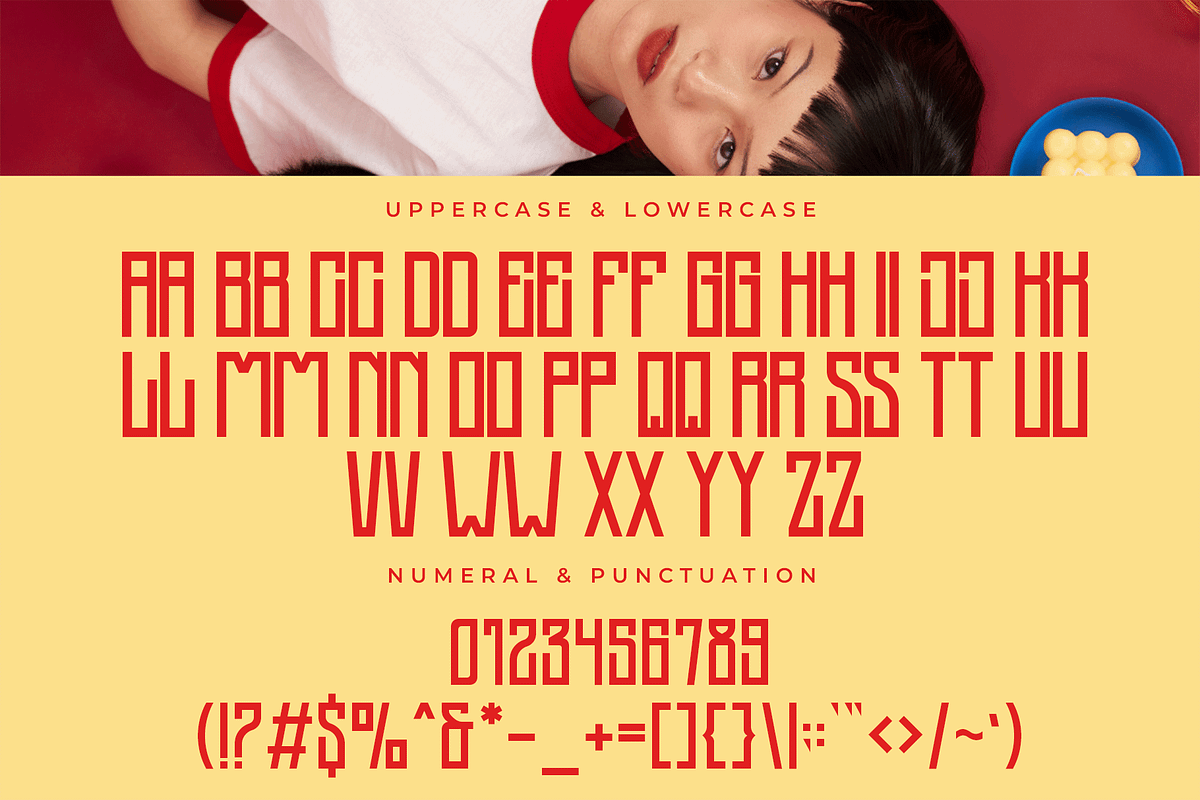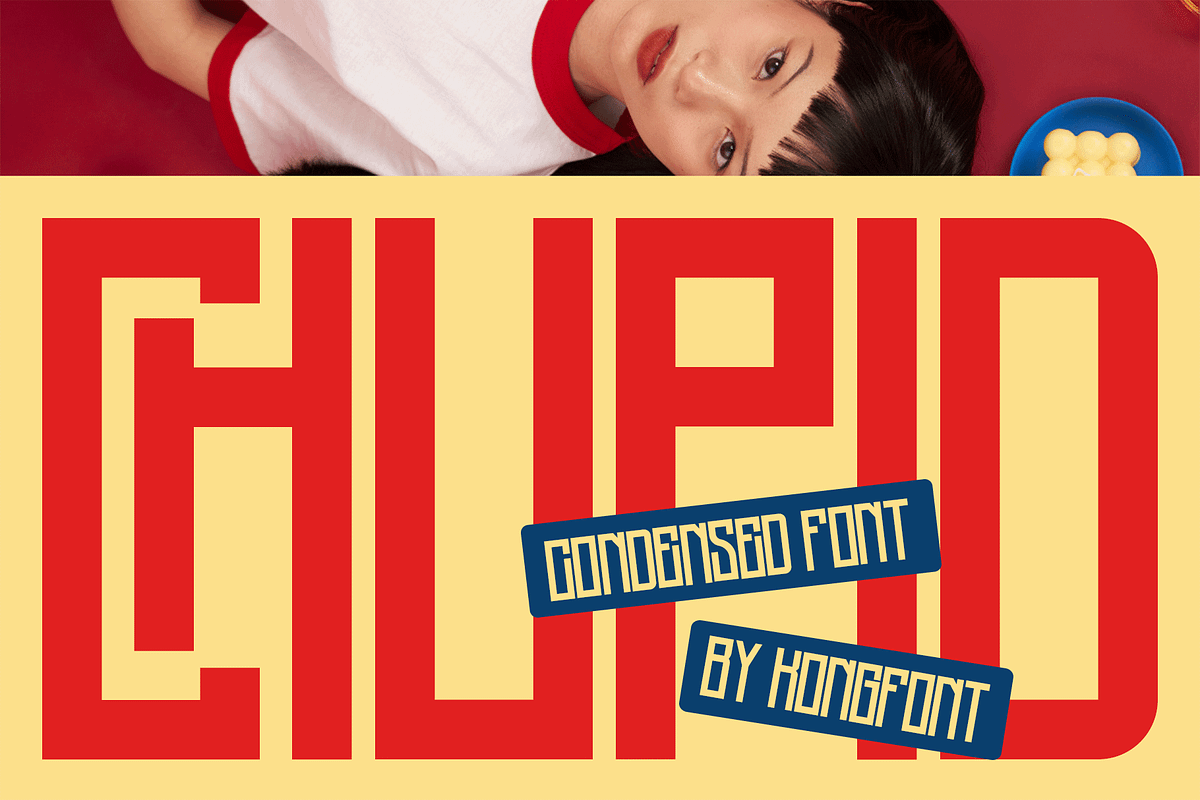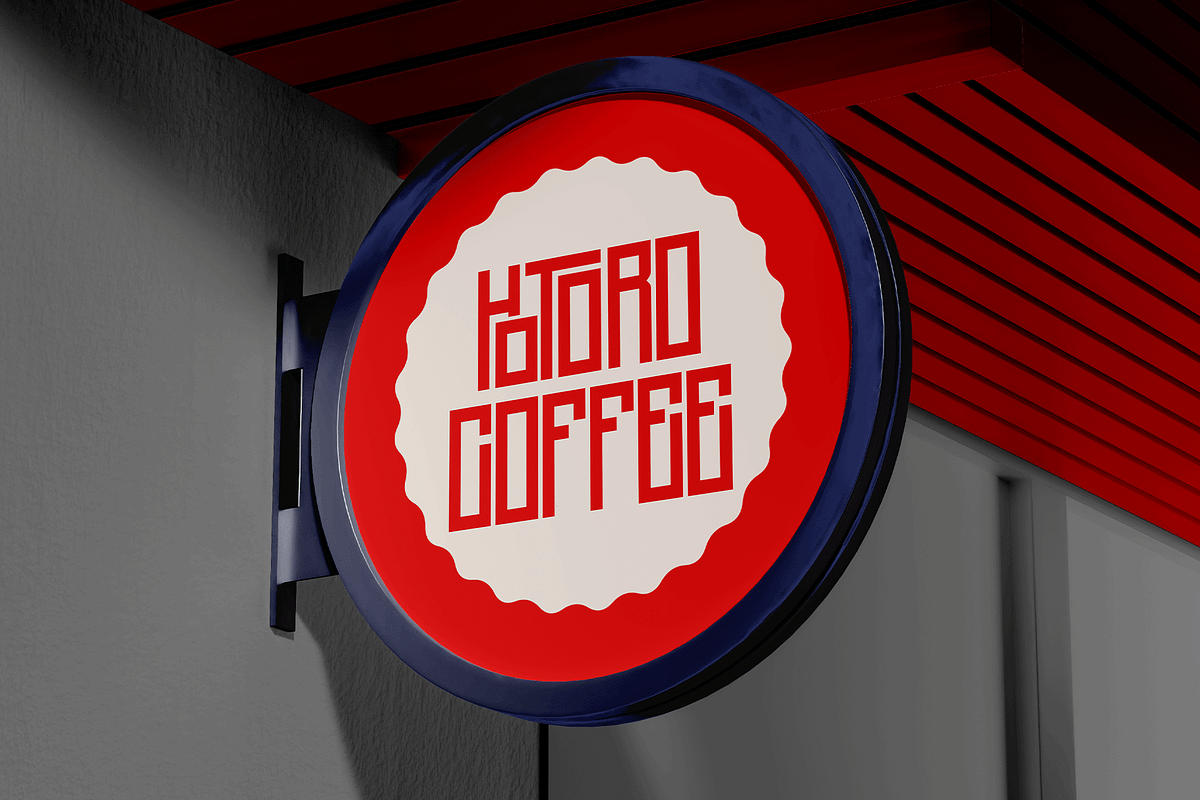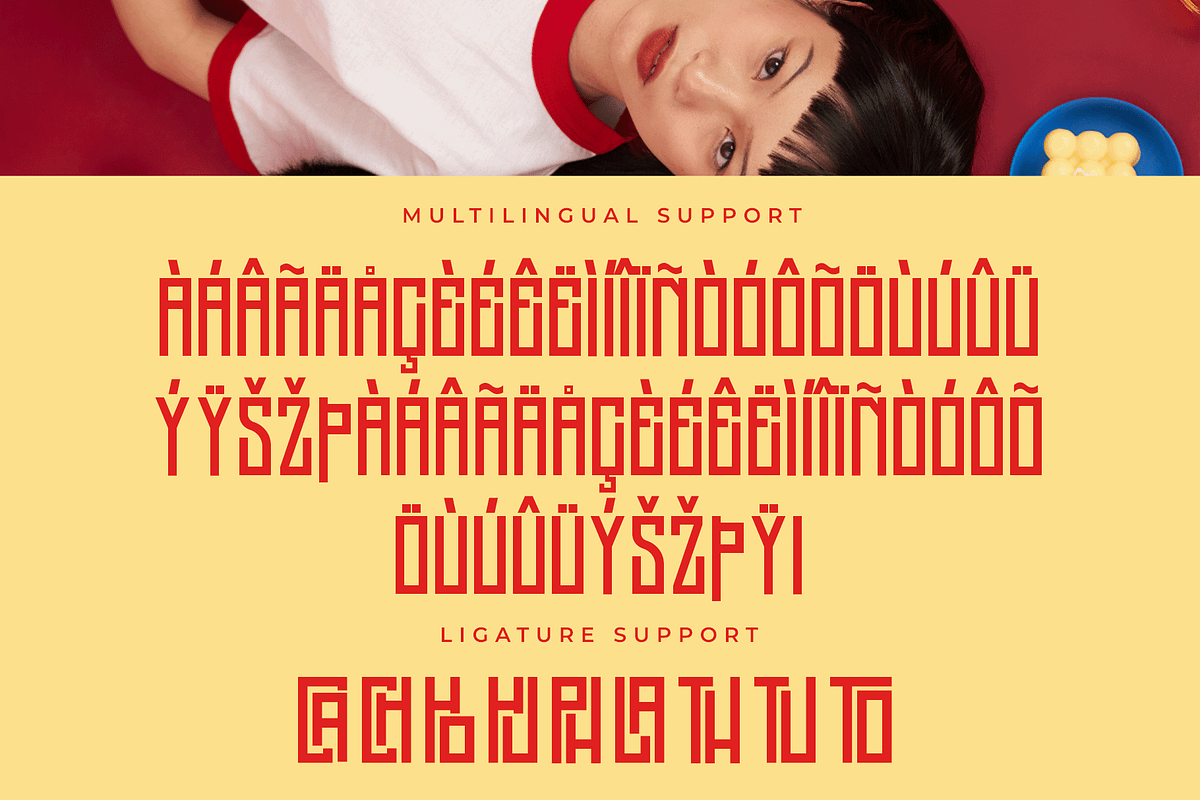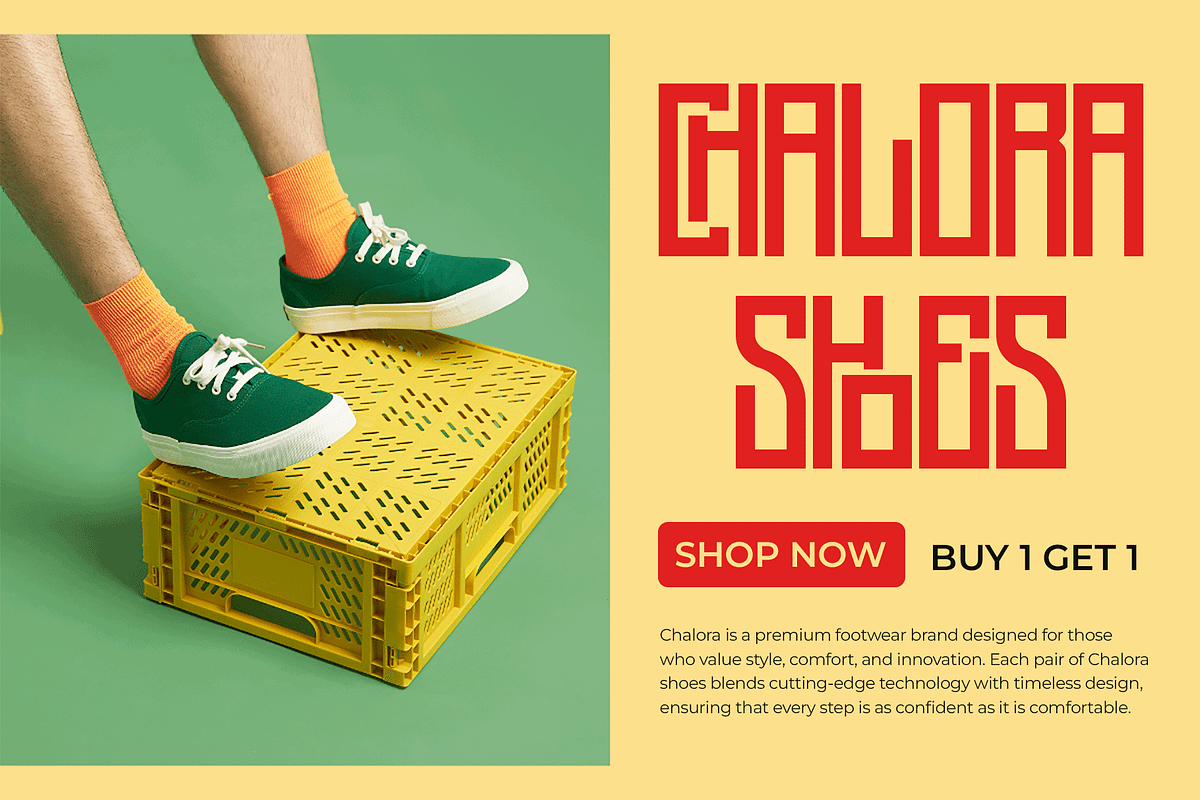
Chupid - Condensed Font
Introducing Chupid, a condensed font designed to deliver a strong, modern presence while maintaining clean simplicity. With its narrow width, crisp lines, and compact structure, Chupid provides maximum impact in minimal space perfect for designs that need to stand out without overwhelming the layout.
Chupid shines in headlines, posters, branding, packaging, editorial design, signage, web banners, and social media graphics. Its streamlined letterforms create a sleek and contemporary aesthetic, making it a great choice for both creative and professional applications. Whether you’re aiming for a modern corporate identity or an eye catching promotional poster, Chupid brings clarity, power, and elegance to your typography.